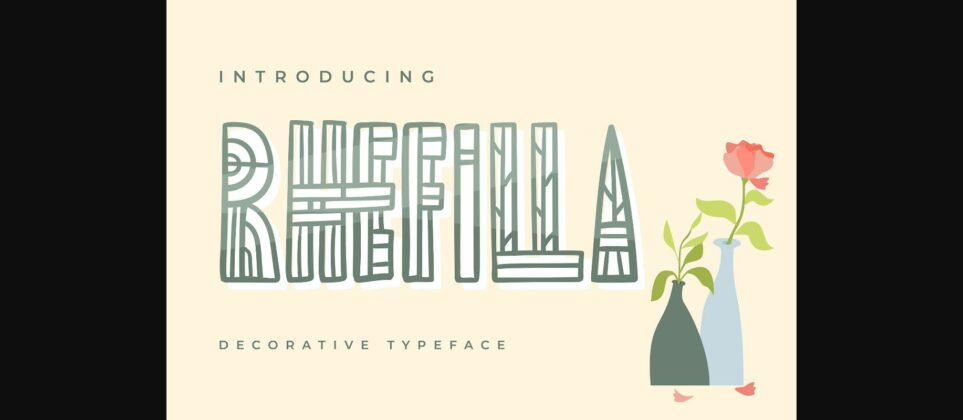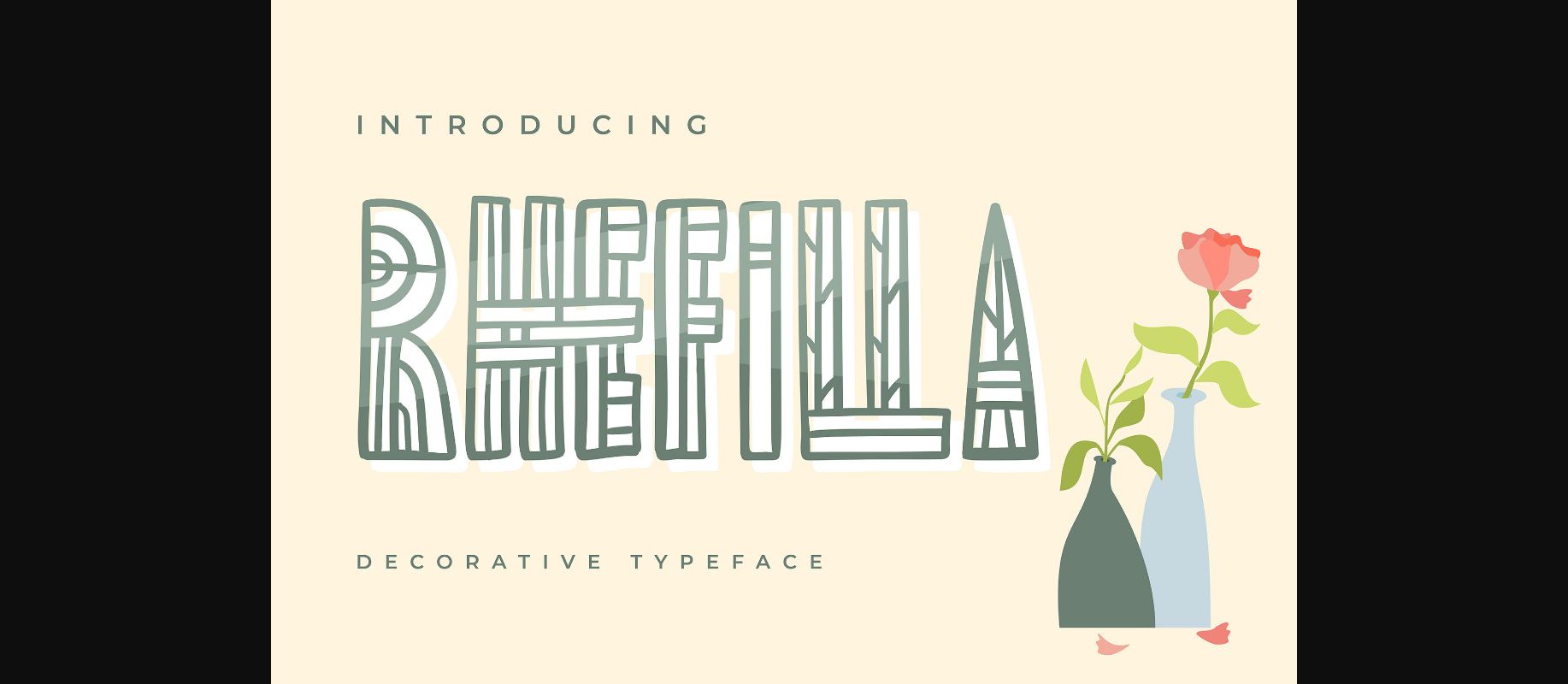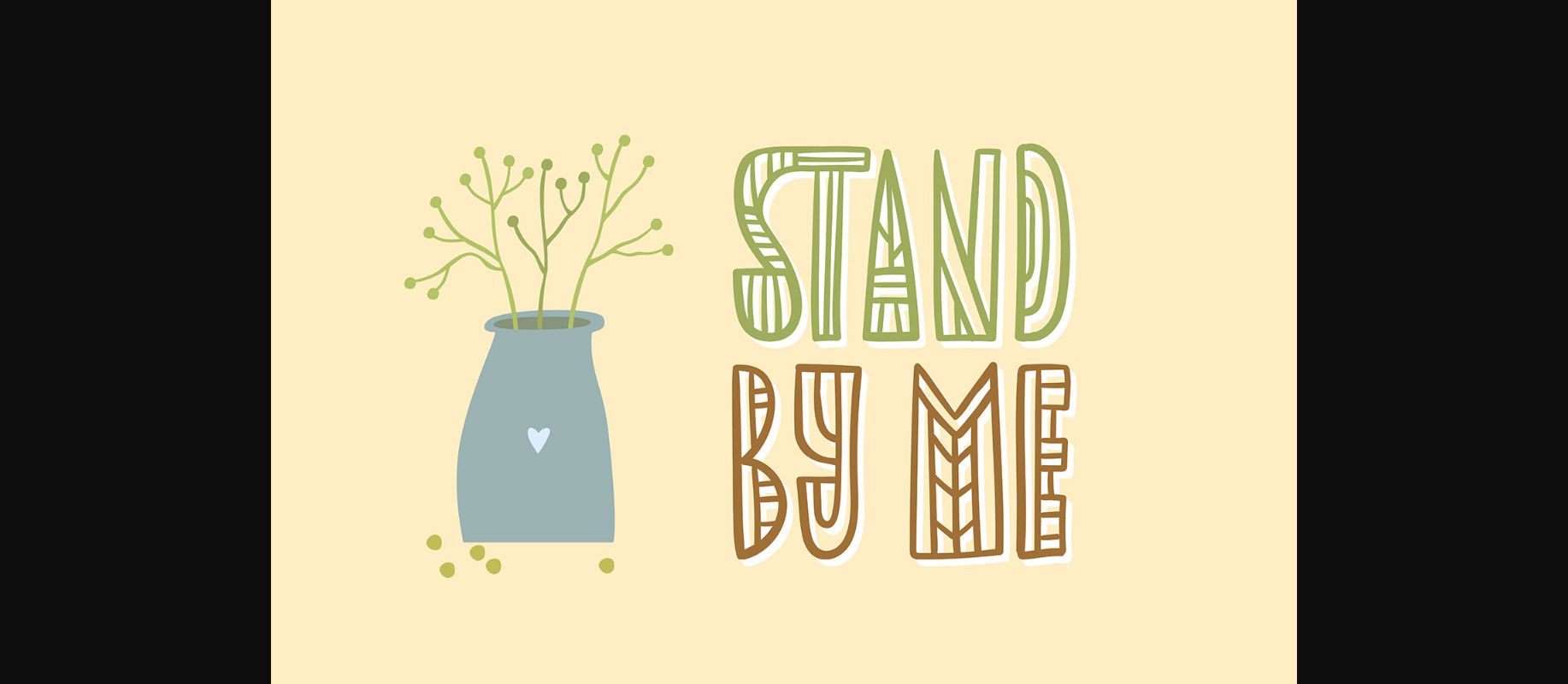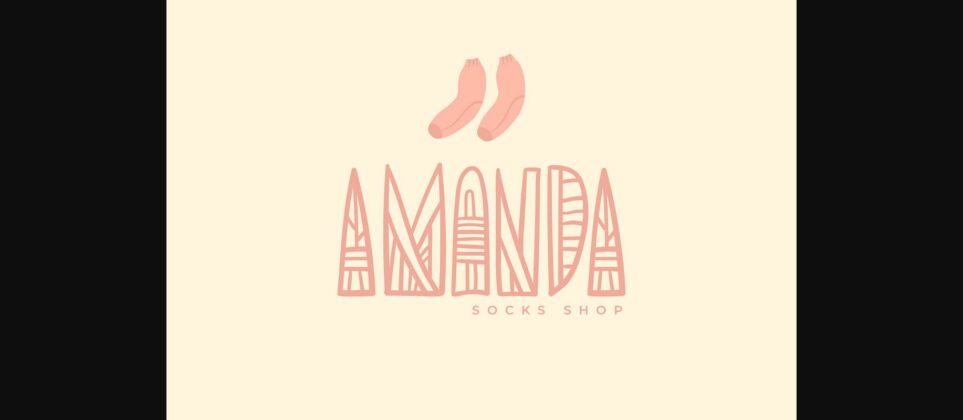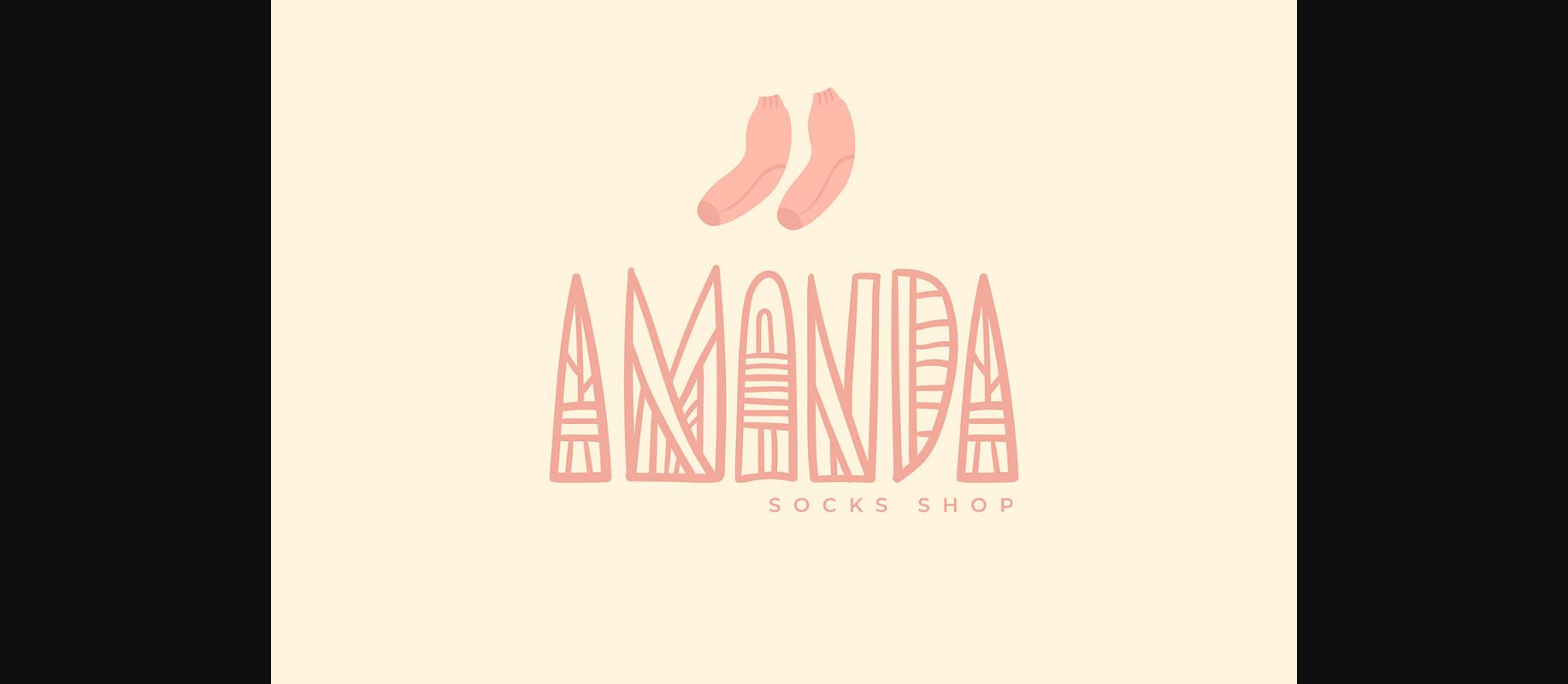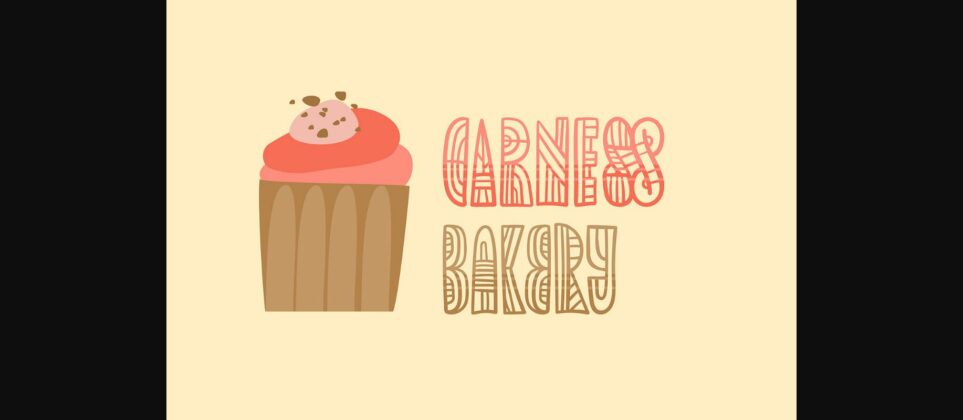
About Rhefilla Font
Rhefilla is a decorative typeface with an incredible look! Take your crafting projects to the next level with this unique font.
It is perfect for greeting cards, branding materials, business cards, quotes, posters, and more!